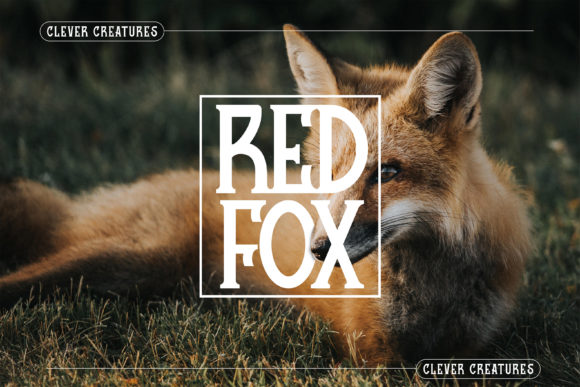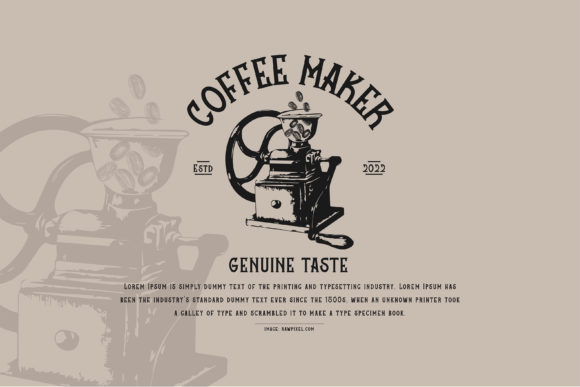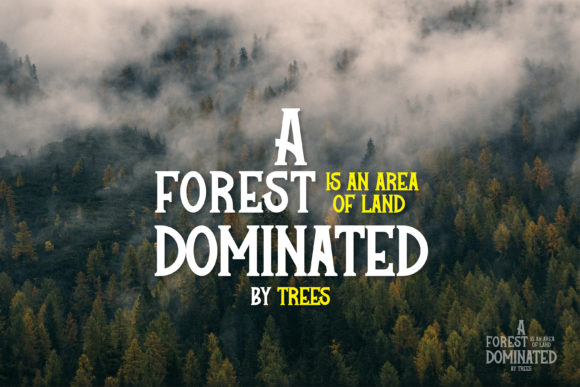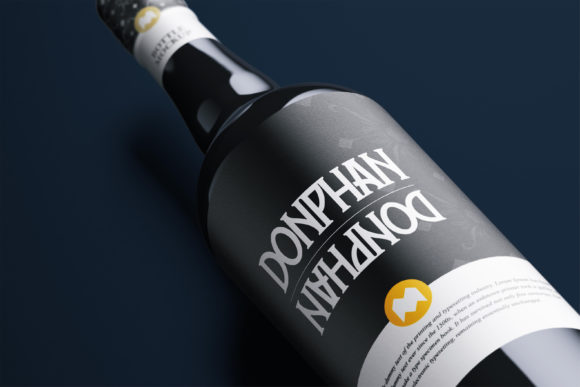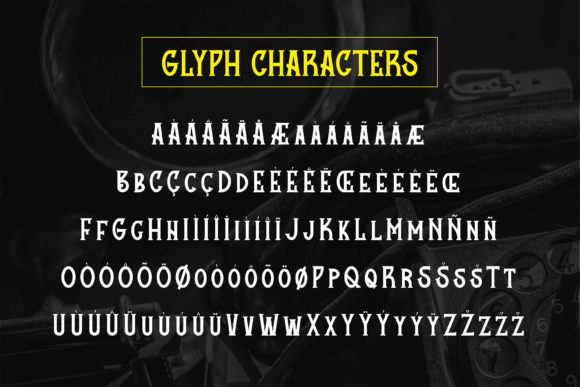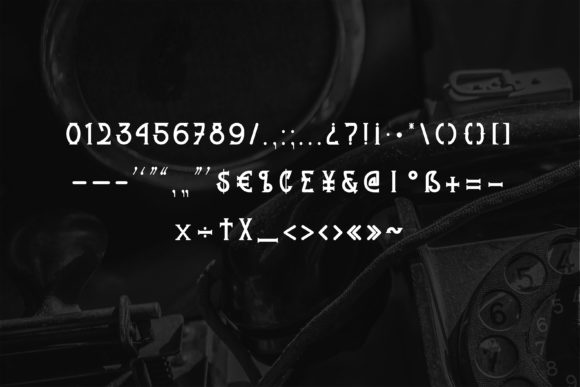
The Birth of a New Design Era: Donphan Font
Have you ever been stuck in a creative rut, staring at a blank page, searching for that one spark that ignites your imagination? For designers, this moment is all too familiar. But what if I told you that the answer lies in the hands of a master craftsman, carefully shaping a retro display font that’s about to revolutionize the design world?
Meet Donphan Font, a meticulously hand-produced font that exudes a sense of nostalgia and timelessness. Its clean form and classic design make it the perfect addition to any visual project, from logos and posters to t-shirts and display ideas. Donphan Font is more than just a font – it’s a statement piece that adds a touch of elegance and sophistication to any design.
For designers, Donphan Font is a valuable asset that can elevate their work to new heights. With its versatility and timeless appeal, it’s an essential tool for anyone looking to create stunning visuals that capture the imagination. Get ready to unleash your creativity with Donphan Font and discover a world of endless design possibilities.
Donphan Font Key Features
- Unique Characteristics: The font features a unique, bold, and playful design inspired by the Donphan Pokémon, with exaggerated lines and shapes that make it perfect for bold headlines and titles.
Designer Review: Donphan Font
Overall, I have mixed feelings about the Donphan Font. On the one hand, it’s a unique and quirky choice that can add some personality to a design. ✨ I appreciate the attention to detail and the efforts to create a font that’s both fun and functional. ✨ The bold, chunky letters are sure to grab attention, and the font’s boldness makes it perfect for headlines and titles.
However, there are some limitations to consider. ⚠️ The font’s readability can be a bit of an issue, especially in smaller sizes. ⚠️ The lack of standardization in letter spacing and kerning can make it difficult to read, especially for long blocks of text. ⚠️ Additionally, the font may not be suitable for formal or professional designs, as it can come across as playful or childish.
Overall, I think the Donphan Font is a fun and creative choice for the right project. It’s perfect for designs that need a bold, eye-catching font, but it may not be the best choice for more formal or serious designs.
- Unique and quirky design
- Perfect for headlines and titles
- Can add personality to a design
- Not suitable for formal or professional designs
- Readability can be an issue in smaller sizes
- Lack of standardization in letter spacing and kerning
Donphan Font Practical Application Guide
The Donphan Font is commonly used for:
– Gaming-themed designs
– Retro-style graphics
– Whimsical illustrations
– Fan art and cosplay designs